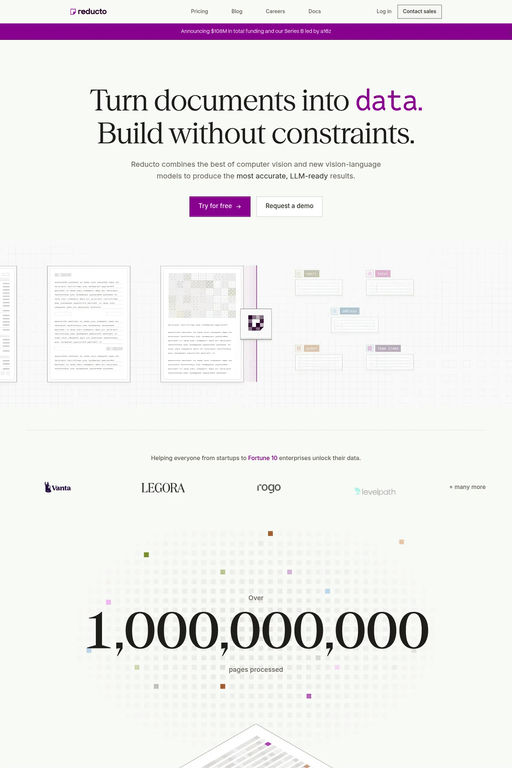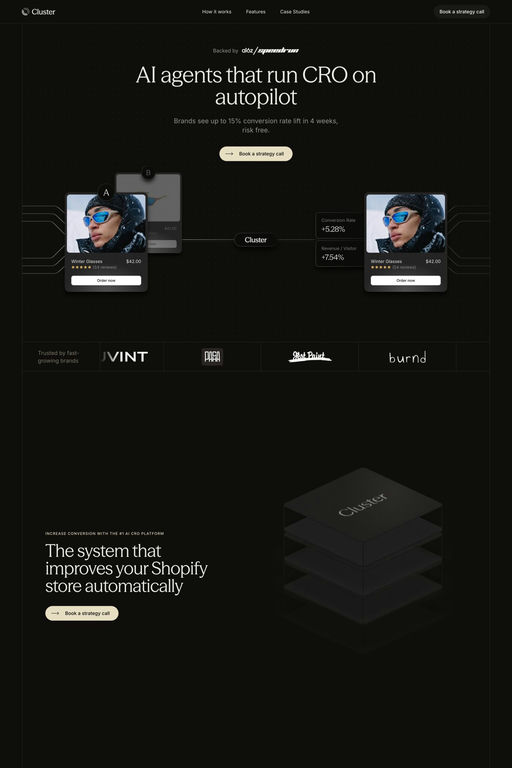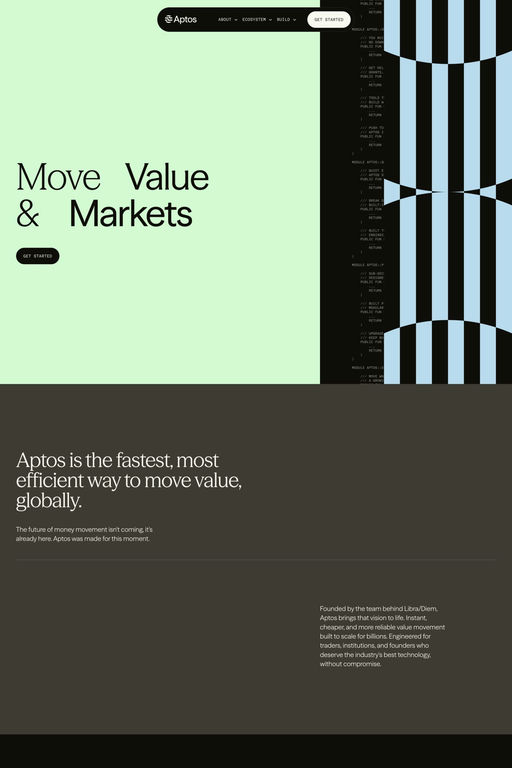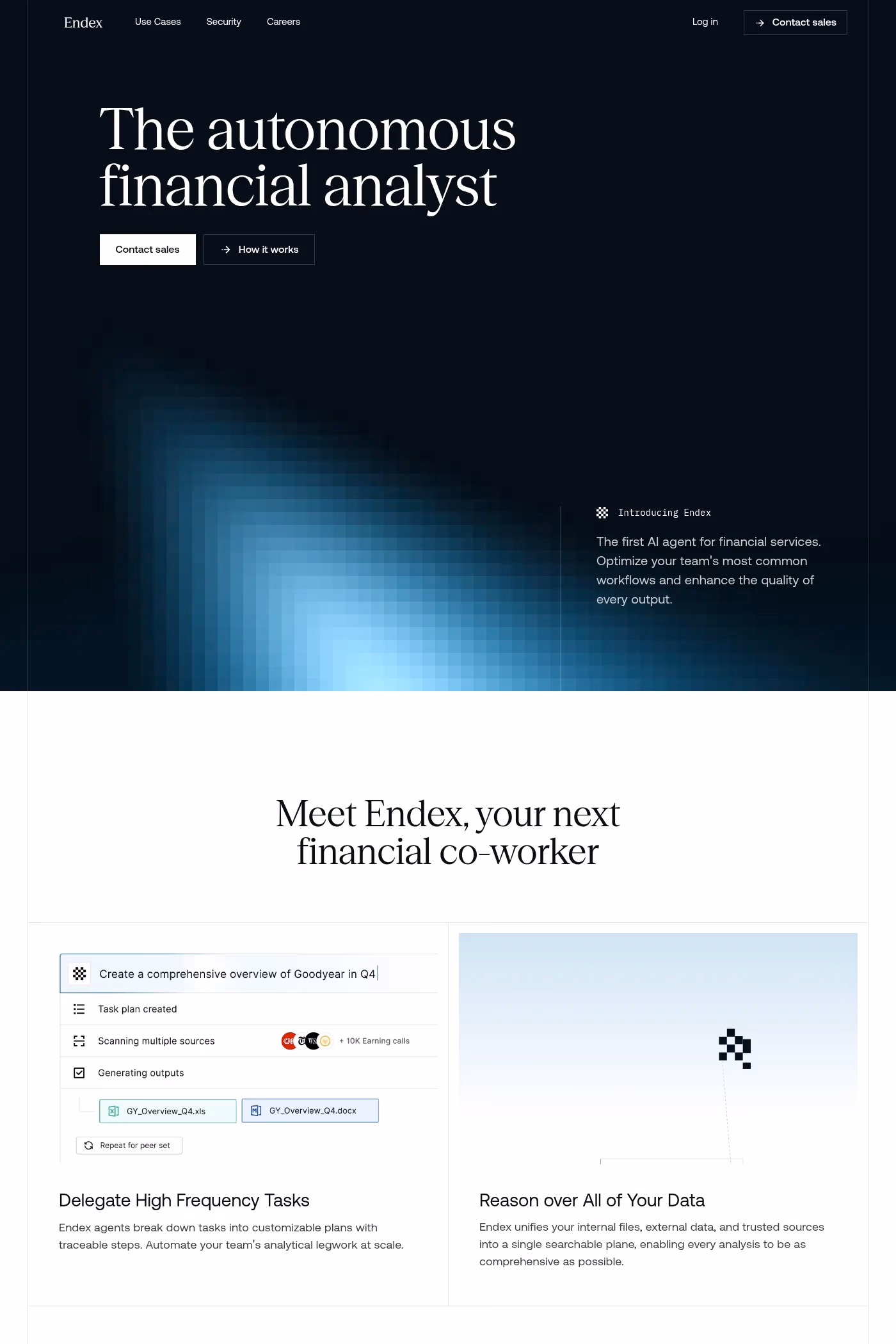
Season Serif is a serif typeface from Displaay Type Foundry.
The exploration of the transformation from sans to serif (or serif to sans) and the stages in between is at the heart of our Season typeface. Just as you enjoy the changing seasons, we hope you’ll appreciate each phase of Season. With the variable font format, you can experience even more stages in this dynamic sans-to-serif collection.
A1 features 5 websites using Season Serif, including Auctor, Cluster, and Reducto. They lean towards Serif, Animated, and Isometric design styles, and they’re most often built with Next.js, Webflow, and Framer.